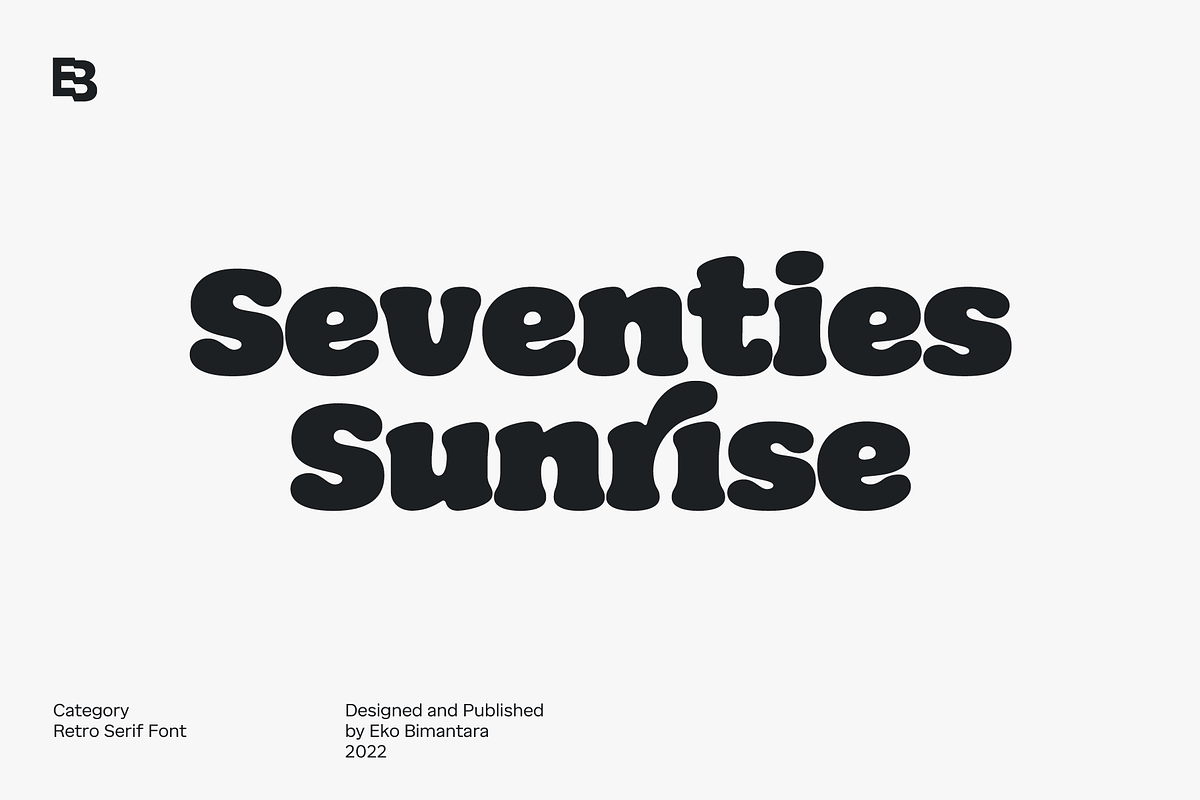
Seventies Sunrise; Retro Fonts Free Download is a groovy and nostalgic typeface collection that channels the bold, expressive energy of 1970s design. With its curvy lines, funky shapes, and warm personality, this font is perfect for vintage posters, apparel design, album covers, branding, and anything that needs a retro revival. It’s a bold statement-maker with a playful soul.
Whether you're aiming for disco vibes, psychedelic art, or boho chic branding, Seventies Sunrise delivers authentic retro flair with a modern twist. The font is packed with character and great for headlines, logos, and creative display purposes.